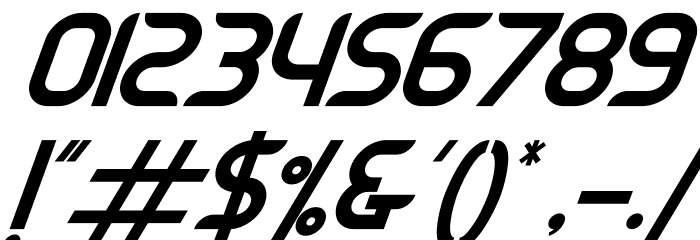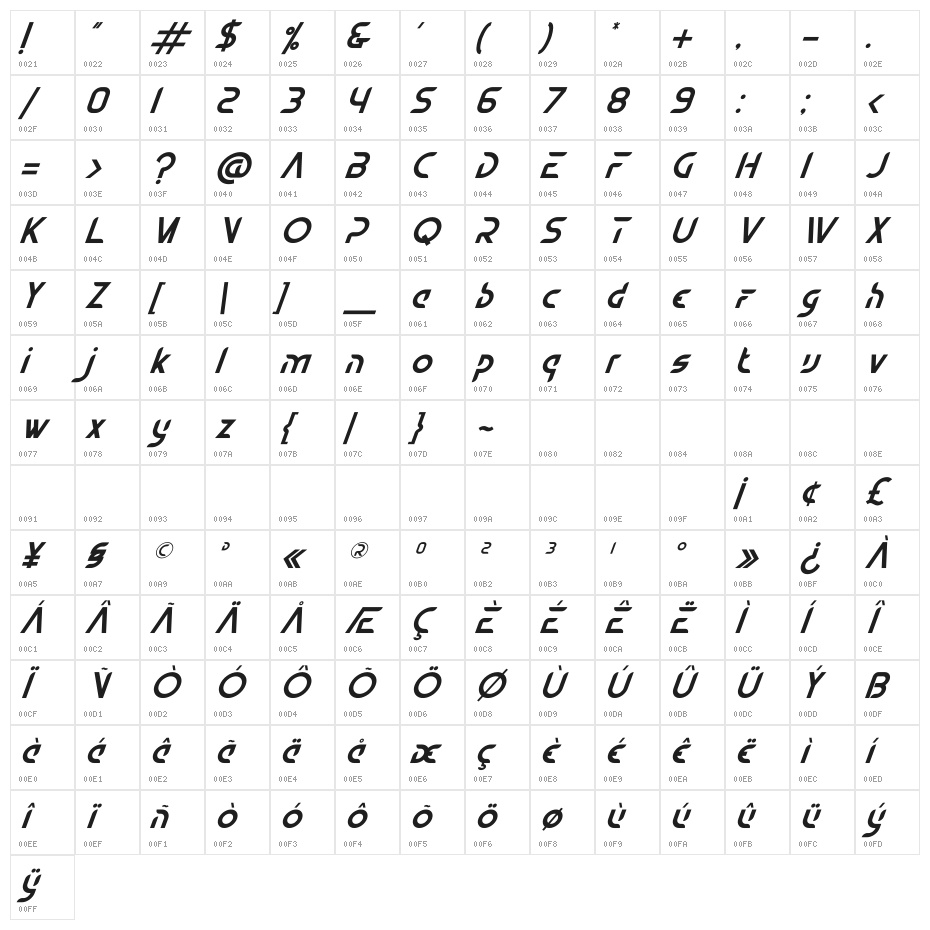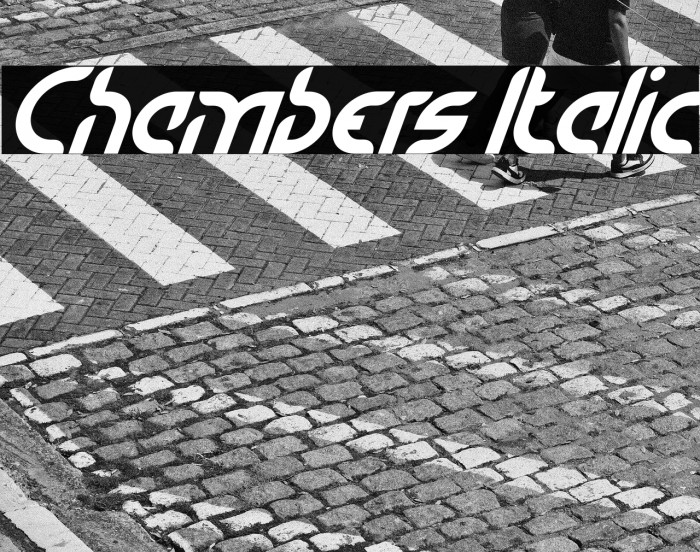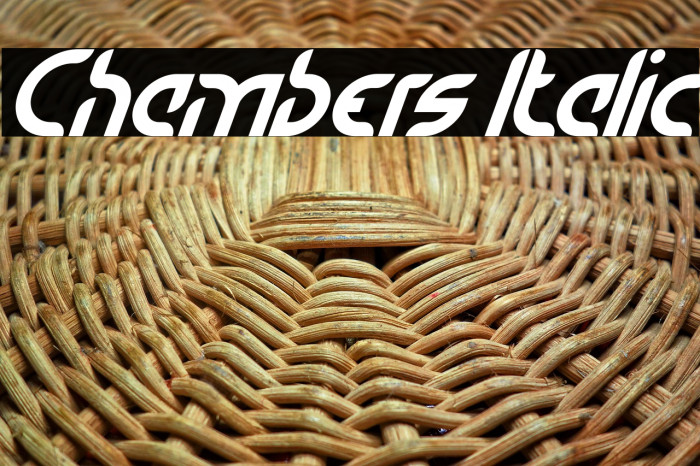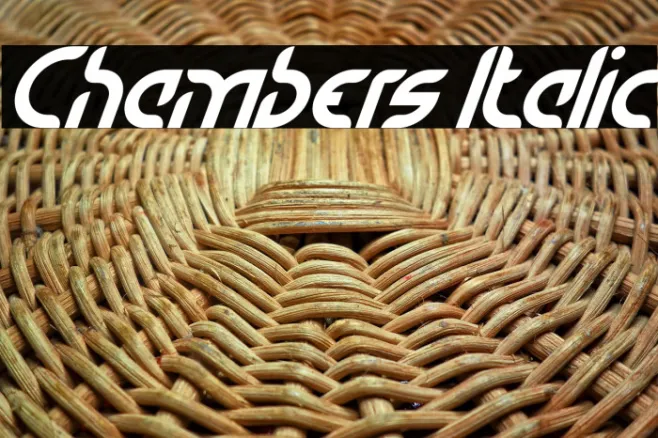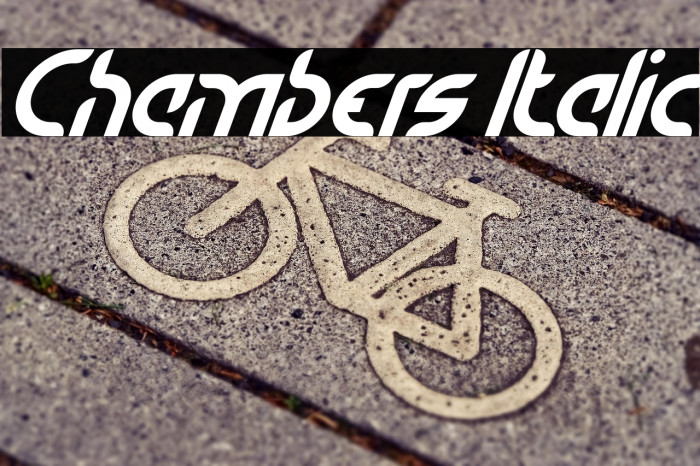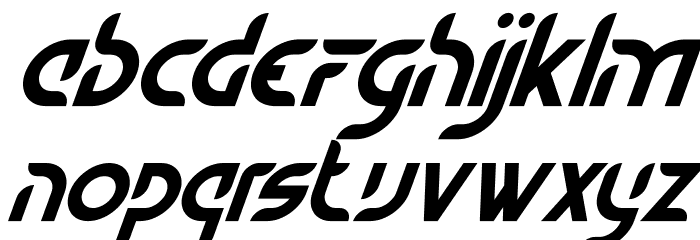
Chambers Italic Font
Chambers Italic Description
This font features a dynamic and modern italic style with a strong forward slant, giving it a sense of motion and energy. The characters are bold and have a consistent stroke width, contributing to a cohesive and powerful appearance. The uppercase and lowercase letters maintain a uniform style, with smooth curves and sharp angles that enhance readability. The numerals and special characters are designed to match the overall aesthetic, ensuring versatility across different uses. The font's design is suitable for projects that require a contemporary and impactful look.
| Proposed Projects | Ideal for branding, advertising, sports team logos, and dynamic headlines. |